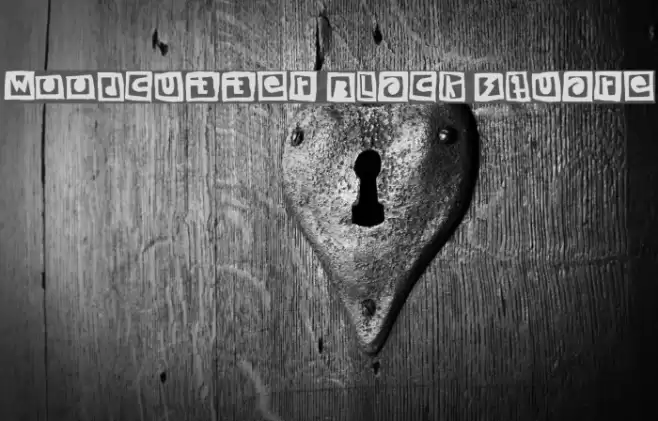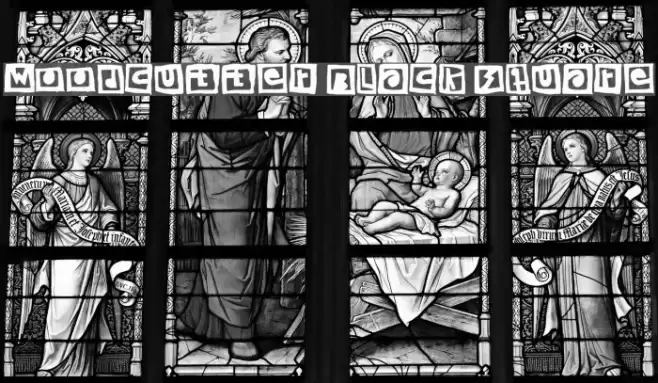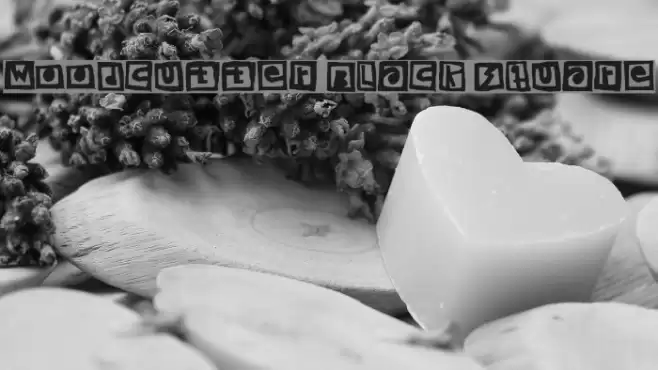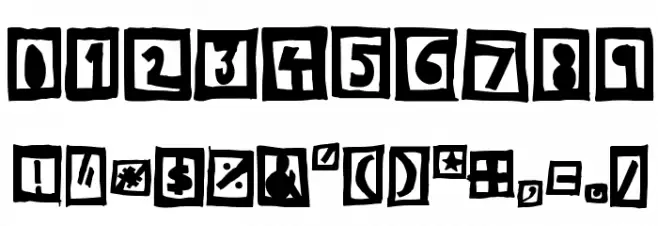
Woodcutter Black Square Font
Woodcutter Black Square Description
This font features a bold, blocky style with each character enclosed in a square, giving it a distinct, playful appearance. The letters and numbers are heavily stylized, with uneven edges and a hand-drawn quality that adds a sense of whimsy and creativity. The font's unique design makes it stand out, with each character appearing as if it has been carved or stamped, contributing to its rustic and artistic vibe. The high contrast between the thick strokes and the negative space within the squares enhances readability while maintaining its decorative appeal.
A bold, blocky font with characters enclosed in squares, offering a playful and artistic style from Uncategorized fonts.